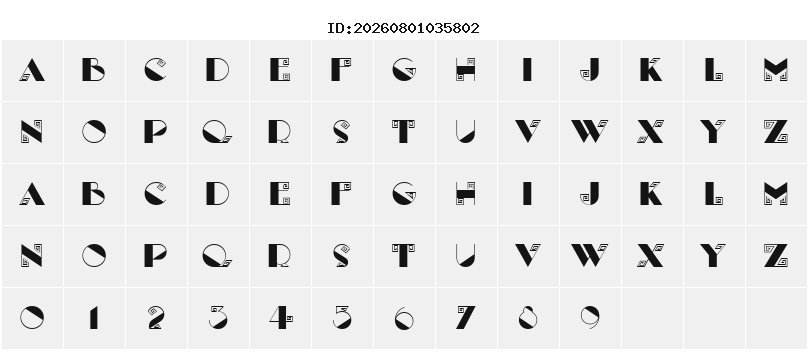
Labyrinth Capital Preview
• Font Name: Labyrinth Capital
• Full Font Name: Labyrinth Capital
• PostScript Name: LabyrinthCapital
• Character Count: 357
About Labyrinth Capital.ttf
Labyrinth Capital.ttf is a modern, elegant sans-serif font designed for ultimate readability and visual harmony. Perfect for branding, headlines, web design, and print materials.